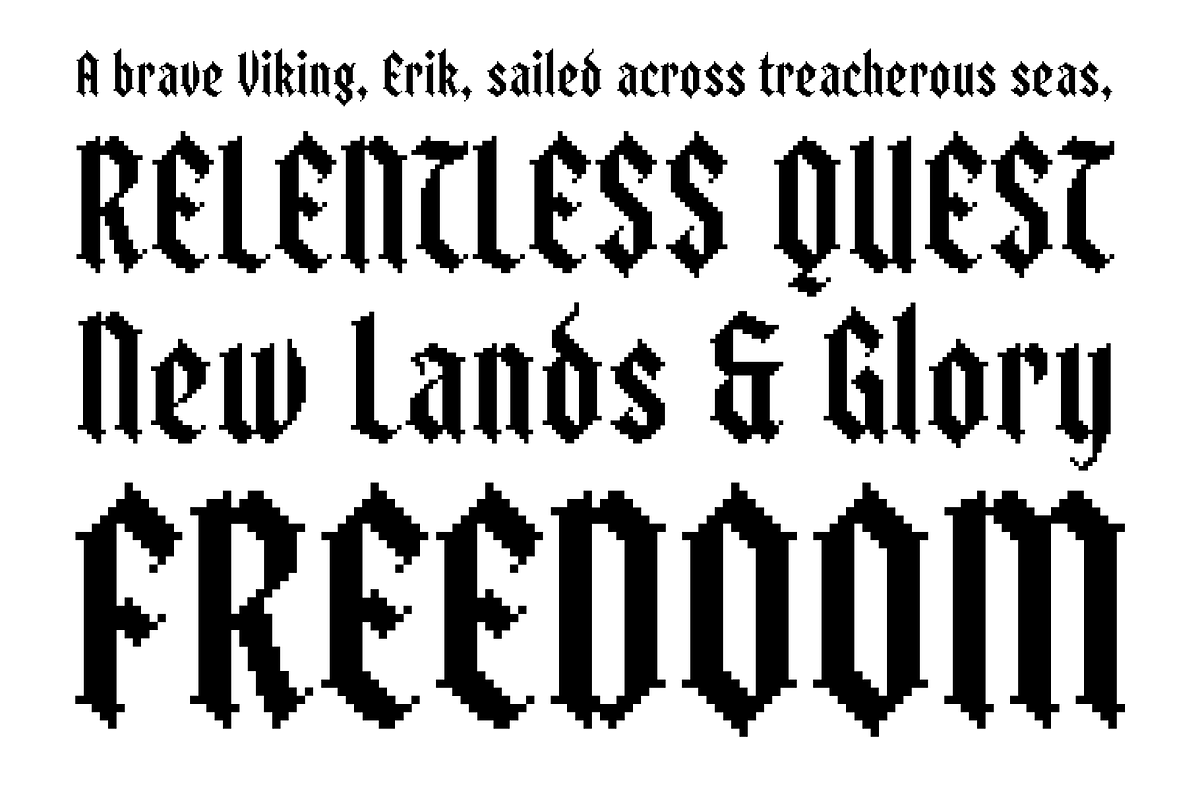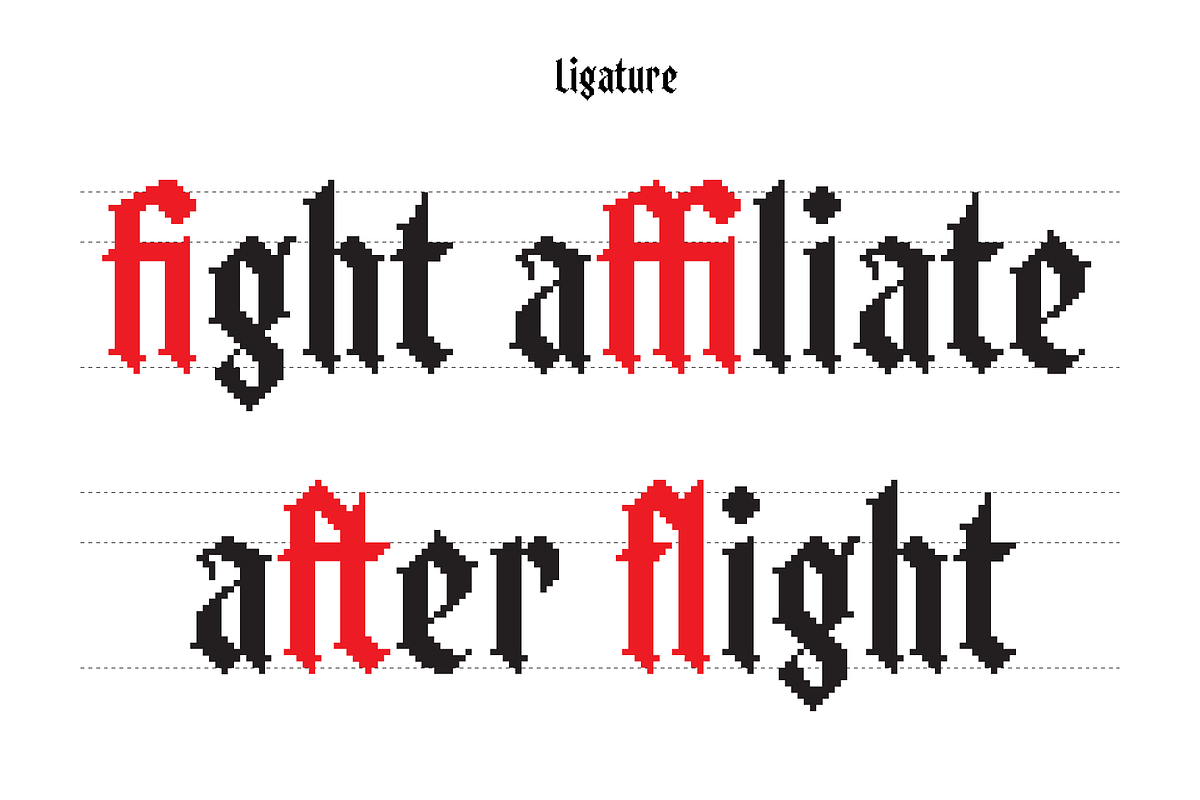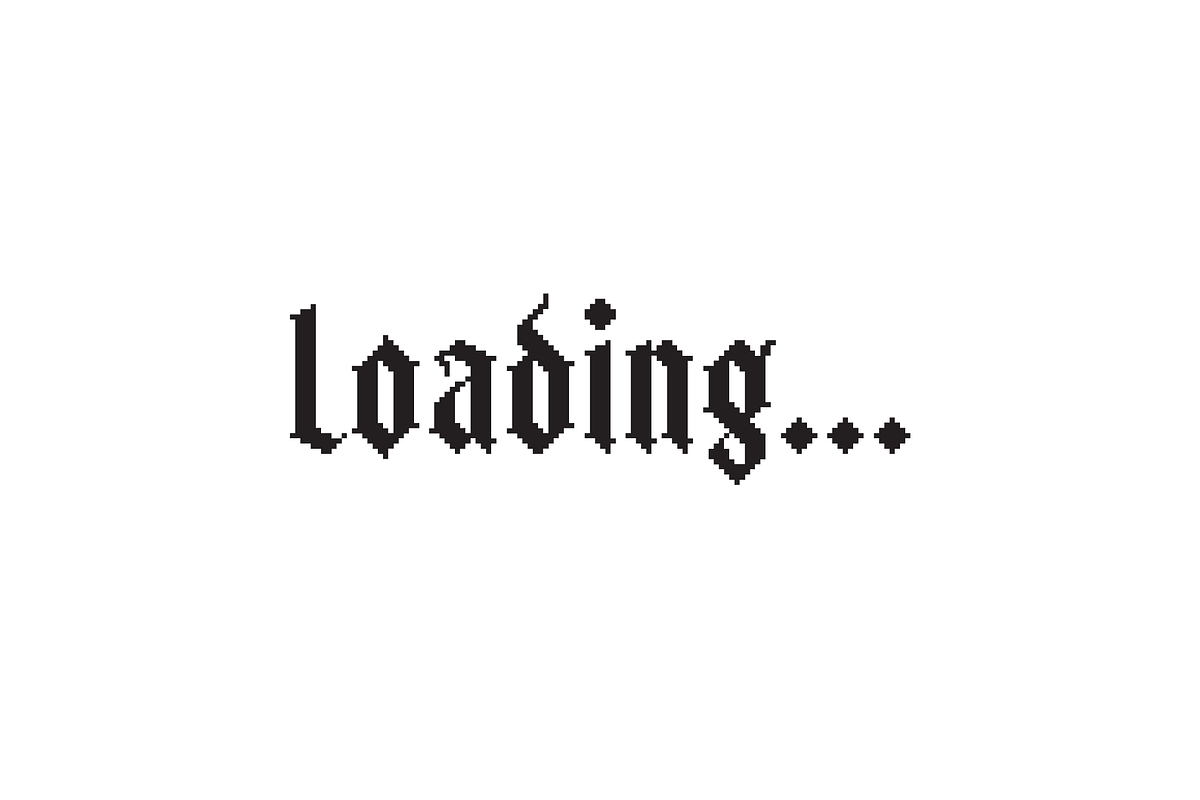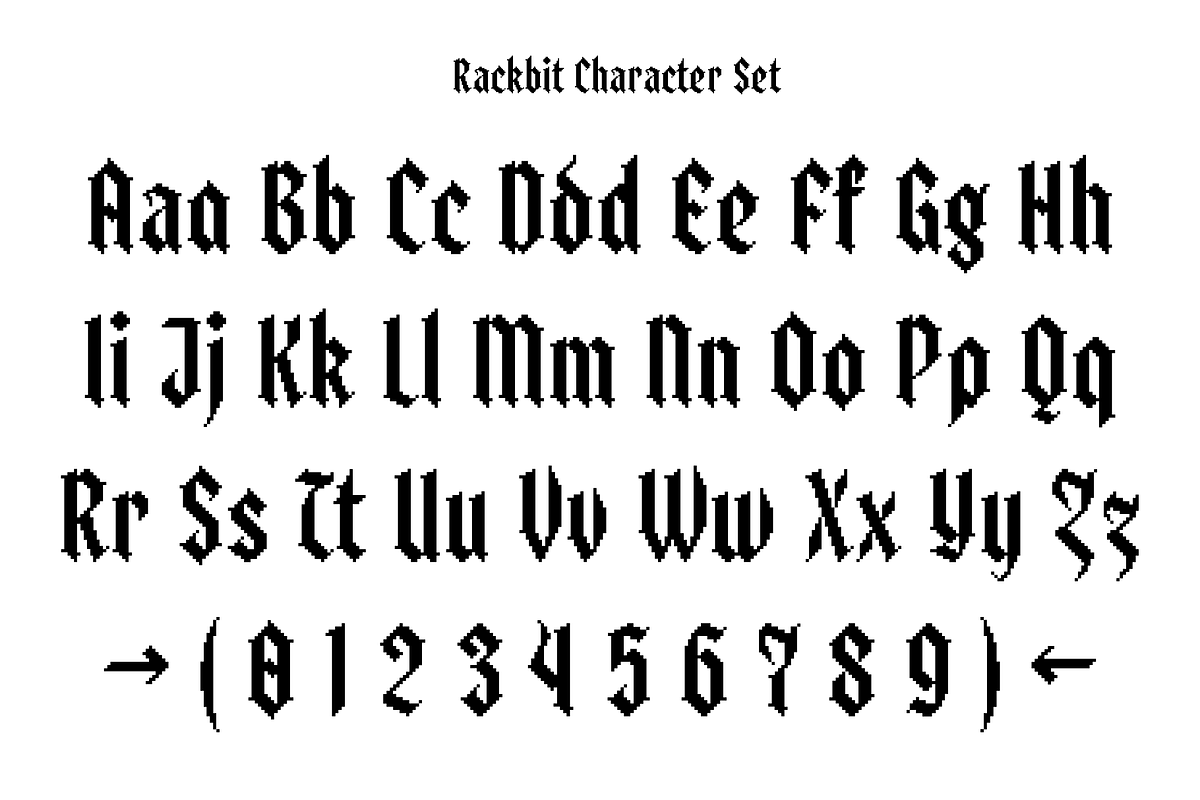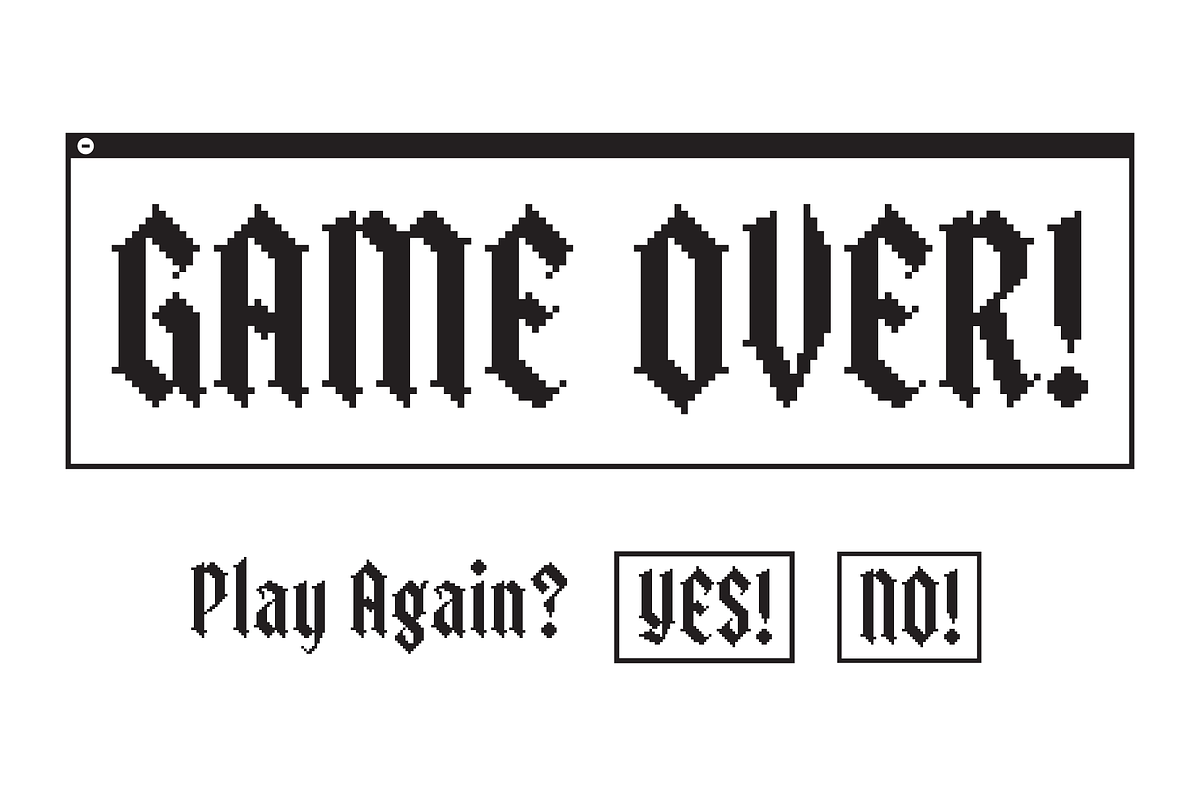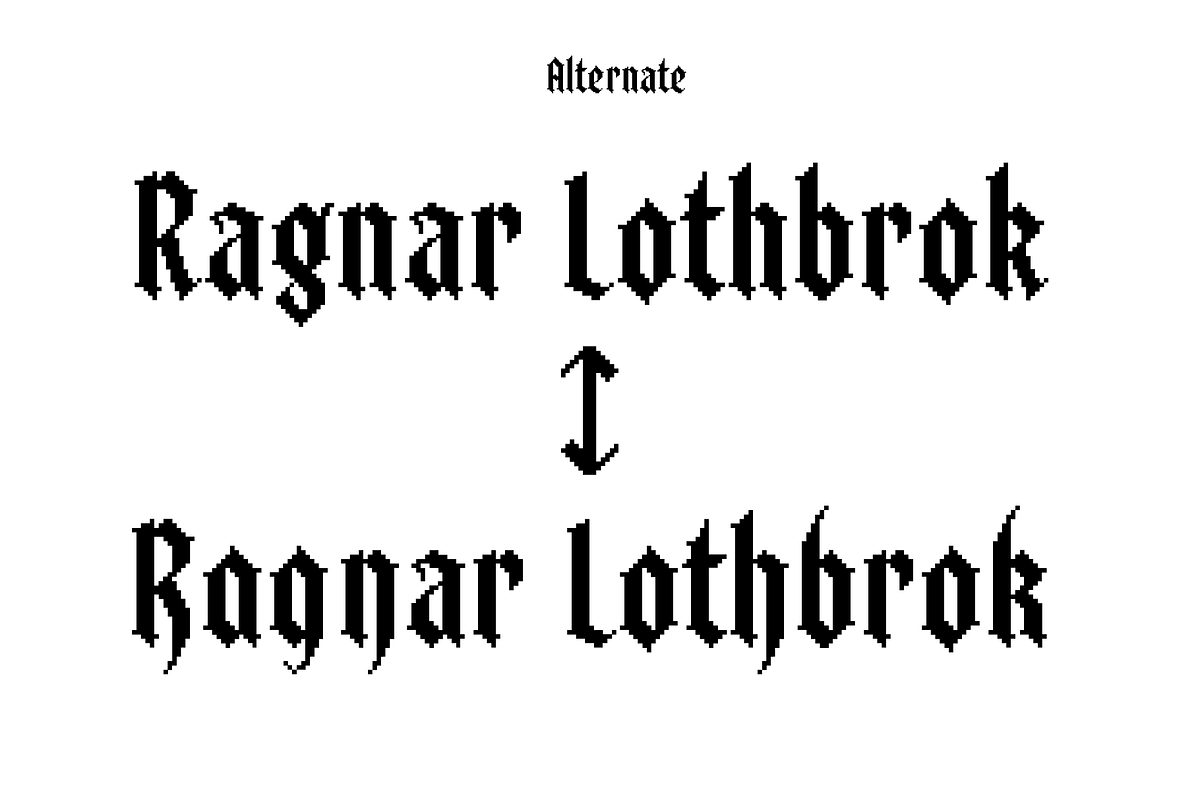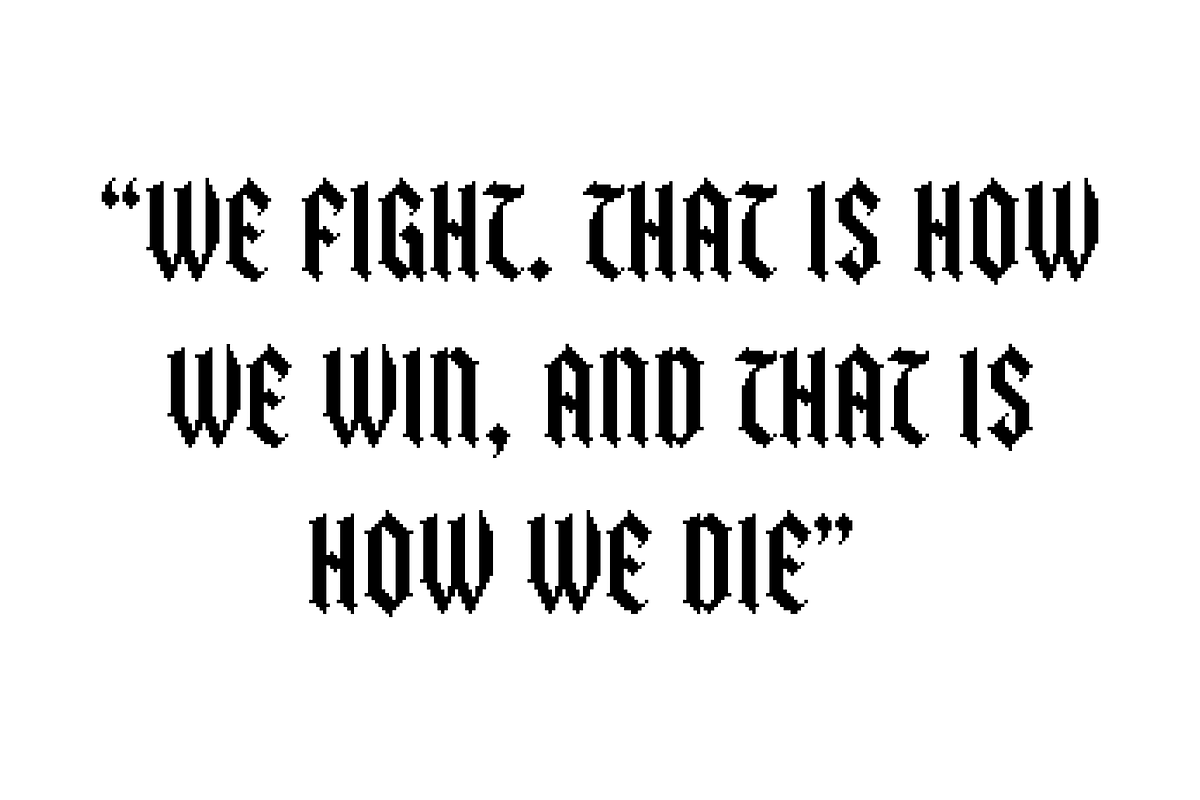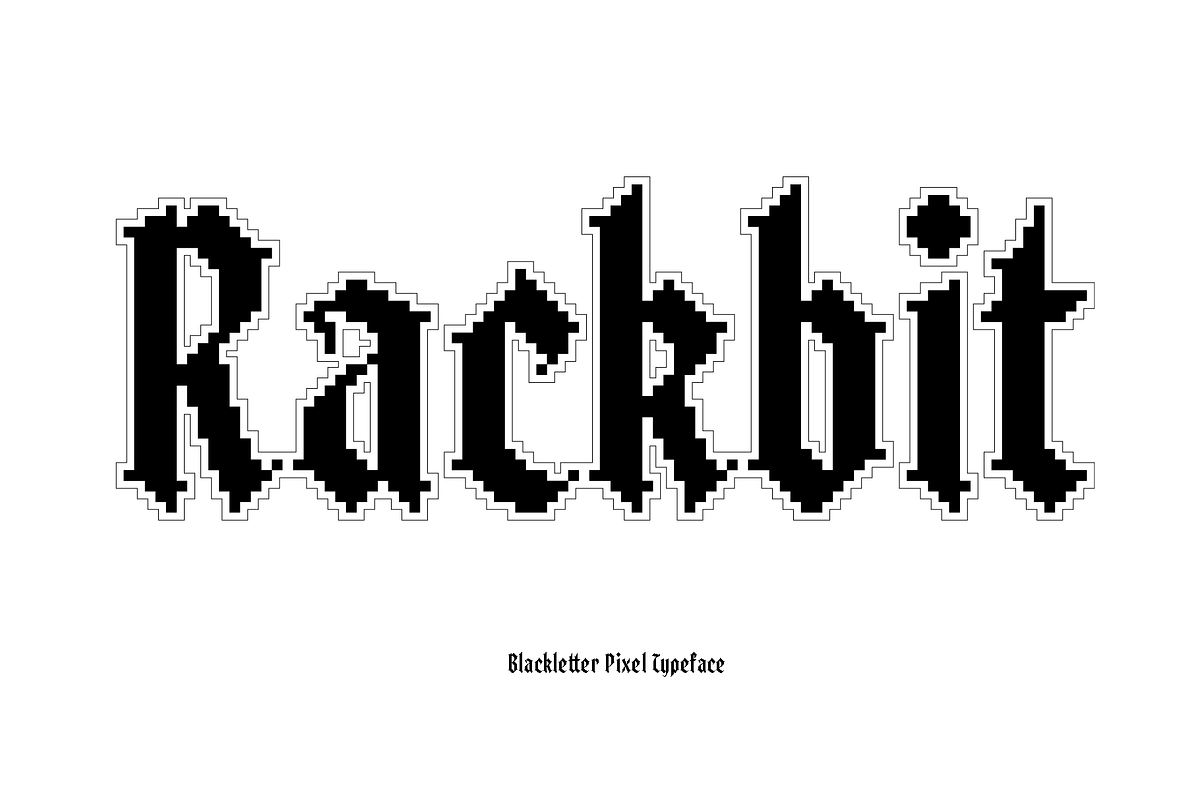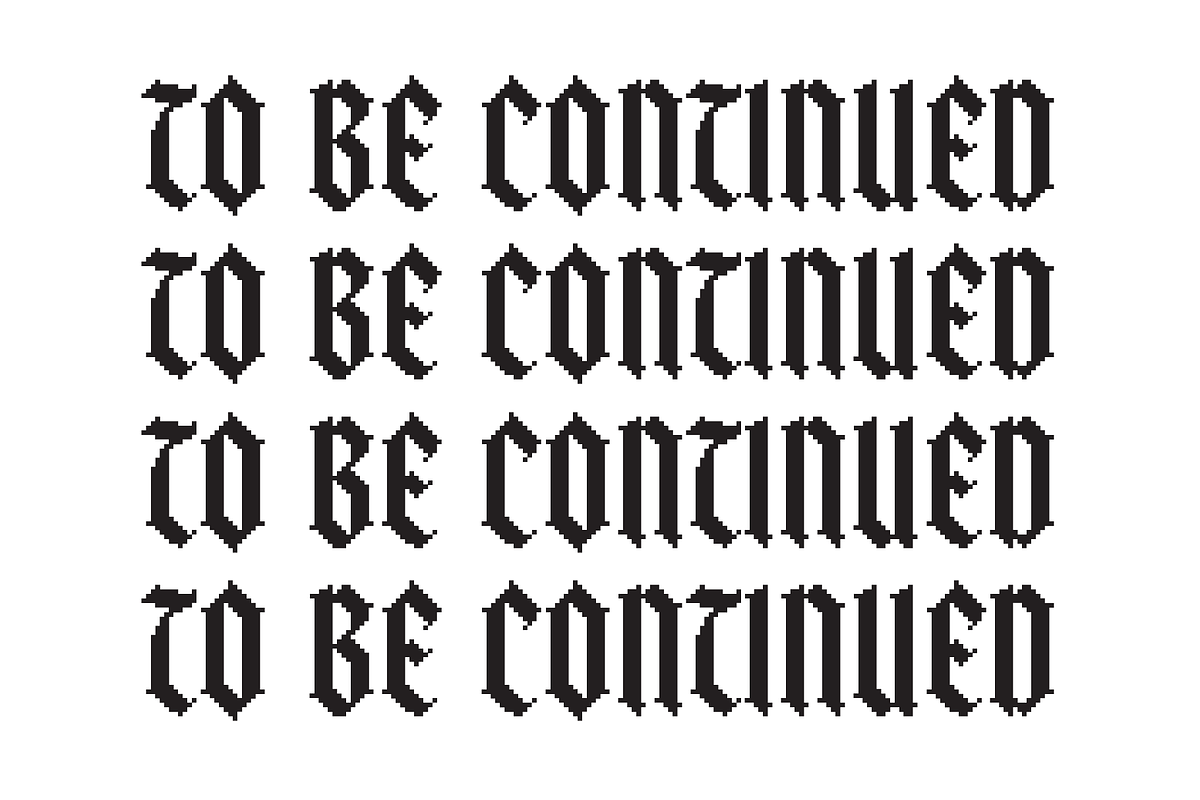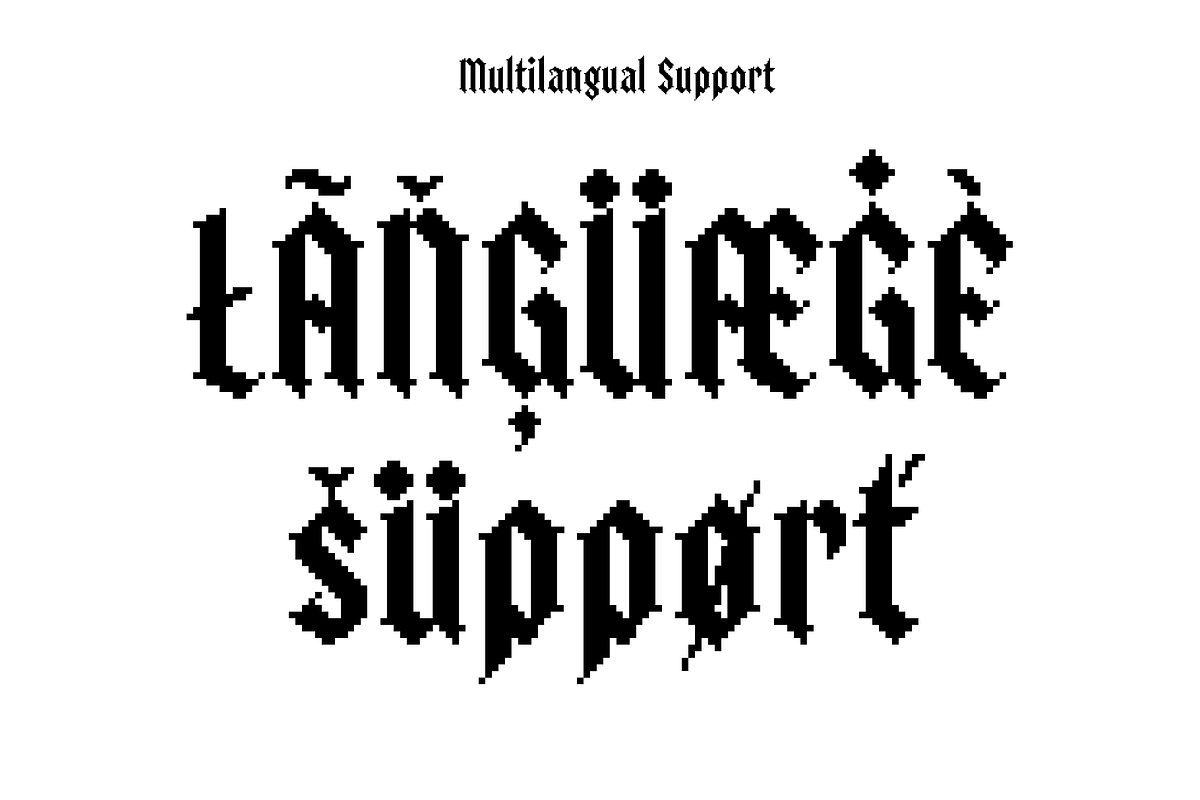
Rackbit - Display Blackletter Pixel
Rackbit
Rackbit is a bold and eye-catching blackletter font with a pixelated twist, blending the historic charm of Gothic scripts with a modern, digital edge. Designed for creative projects, Rackbit stands out with its unique pixel execution, making it perfect for logos, headlines, posters, and gaming-inspired designs.
### Features:
- Multilingual Support: Includes an extensive character set to support multiple languages.
- Alternate Characters: Customize your text with stylish alternates for added versatility.
- Standard Ligatures: Ensures smooth and seamless letter combinations for better aesthetics.
Rackbit is the perfect choice for those who want to combine medieval elegance with a retro-tech vibe.